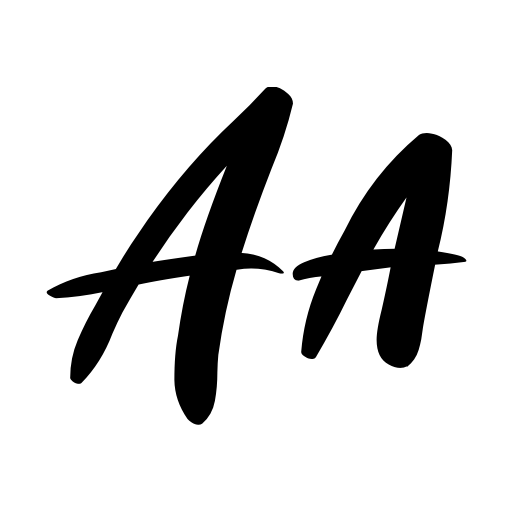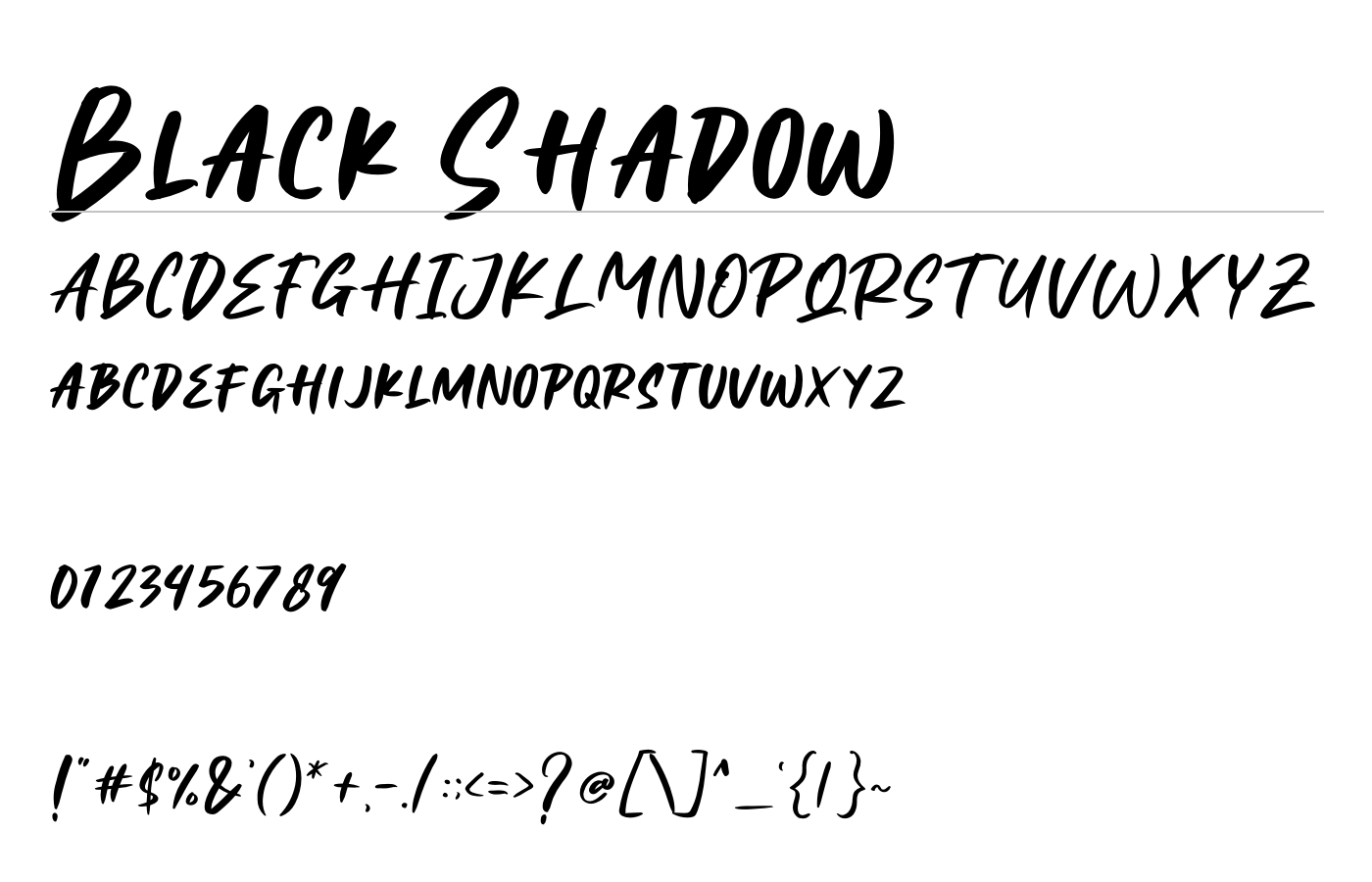
Black Shadow is a bold, energetic script font with a hand-drawn feel, characterized by its fluid strokes and slightly irregular letterforms that convey a casual yet dynamic personality. Its moderate contrast and lively style make it perfect for creative branding, posters, and headlines where a spirited and approachable tone is desired. This font works especially well for designs that want to combine a touch of informality with strong visual impact.
Black Shadow Font
About Black Shadow Font
| Font family | Black Shadow Font |
| Trademark | Bluestype Studio |